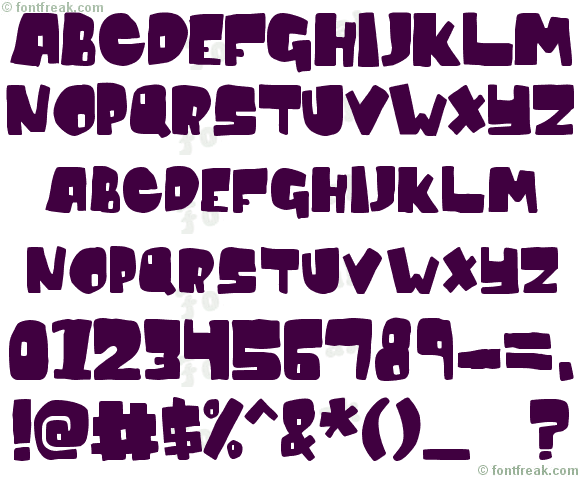
Conventional Wisdom
About Conventional Wisdom
Conventional Wisdom by Divide By Zero is a captivating display font that effortlessly blends creativity with readability. This font features a bold, slightly irregular design that gives it a unique, hand-drawn quality. Its strokes are thick and consistent, complemented by rounded edges that add a friendly and approachable feel. The letter spacing is generous, ensuring clarity and legibility, making it ideal for various applications.
This font shines in use cases such as eye-catching movie posters, vibrant restaurant menus, and engaging social media graphics. Its whimsical style can also enhance invitations for casual events like birthday parties or community gatherings. Small business owners looking to add a personal touch to their branding will find Conventional Wisdom to be a perfect fit for logos and promotional materials. Graphic designers seeking to create playful and distinctive projects will appreciate the font's versatility.
What truly sets the Conventional Wisdom font apart is its blend of playfulness and professionalism. It captures attention while maintaining a level of clarity that ensures effective communication. Whether used in digital or print formats, this font embodies a spirit of creativity and individuality, making it a valuable addition to any designer's toolkit. For those interested, a Conventional Wisdom font free download is readily available, enabling easy access to this delightful typeface.